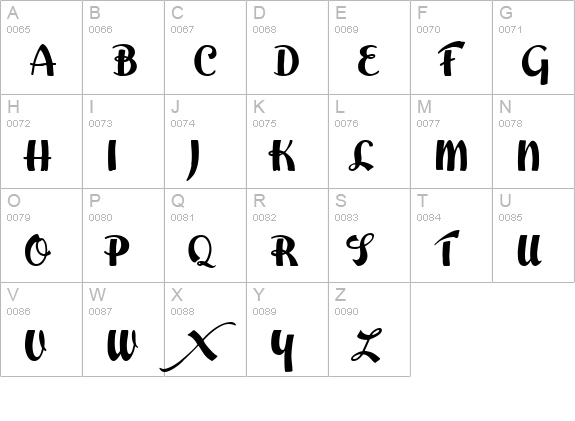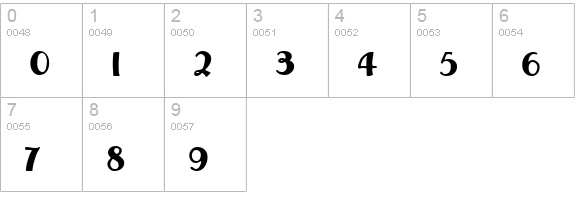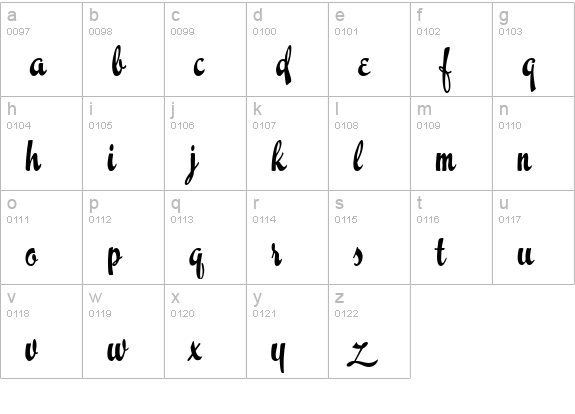
Easter Parade font is a whimsical and festive typeface that captures the essence of springtime and joy. With its playful curls and decorative elements, this font is perfect for adding a touch of charm to your projects. Whether you're creating invitations, greeting cards, or social media graphics, Easter Parade font will bring a cheerful and lighthearted feel to your designs. Best of all, Easter Parade font is available for free download at FontsMarket.com. Embrace the spirit of the season and bring a touch of whimsy to your creations with this delightful typeface. Download Easter Parade font today and let your creativity bloom!